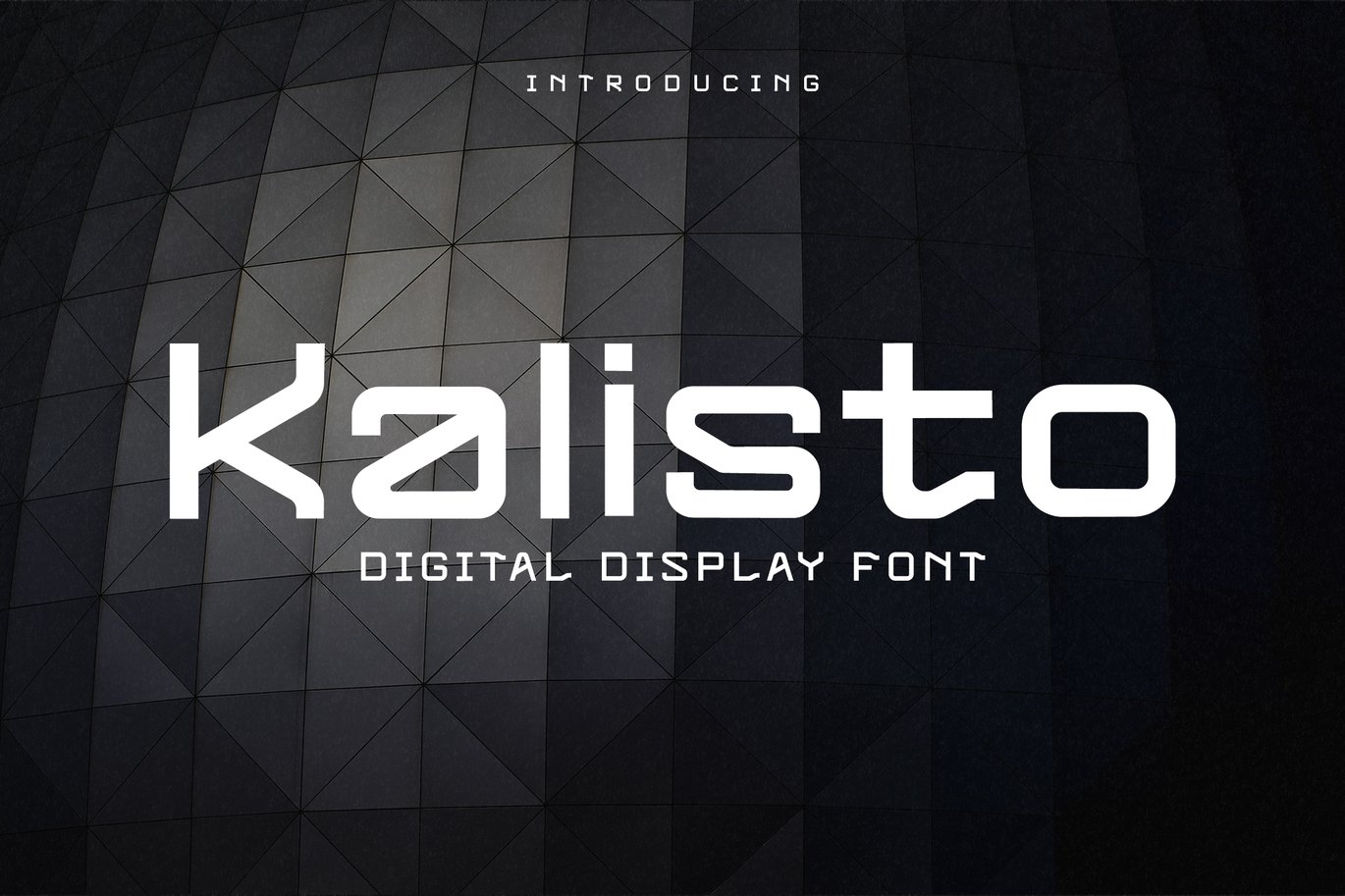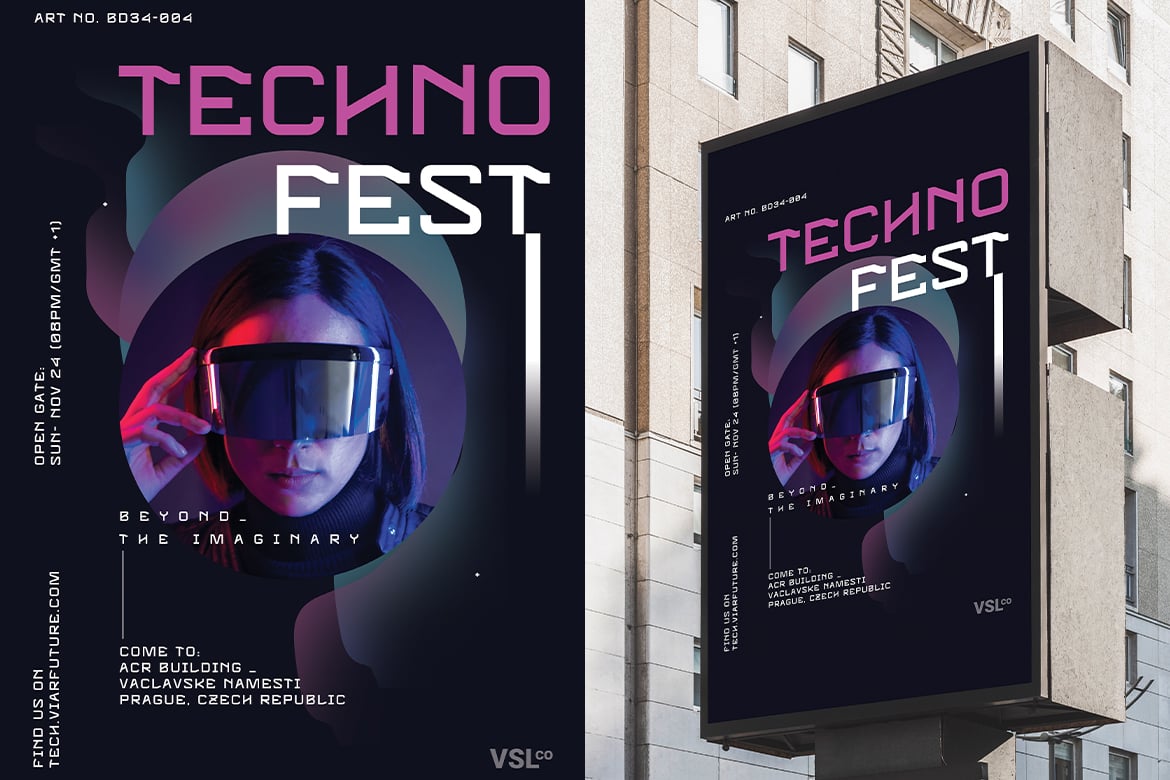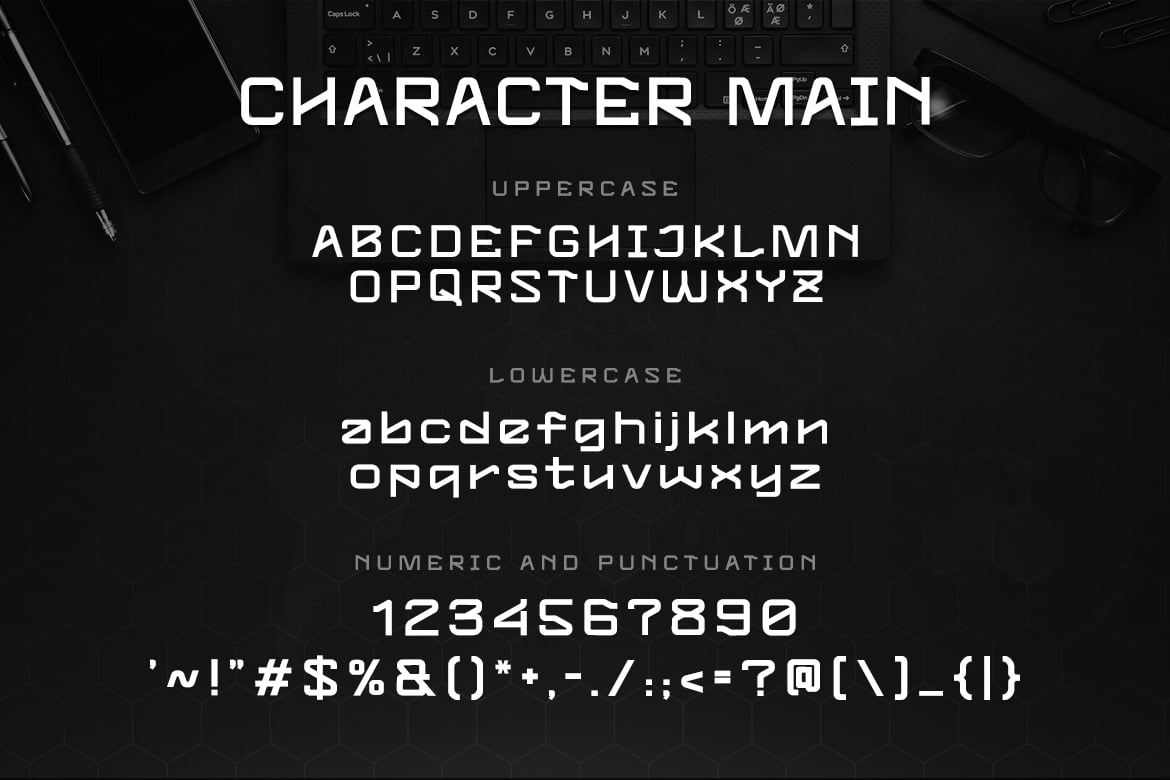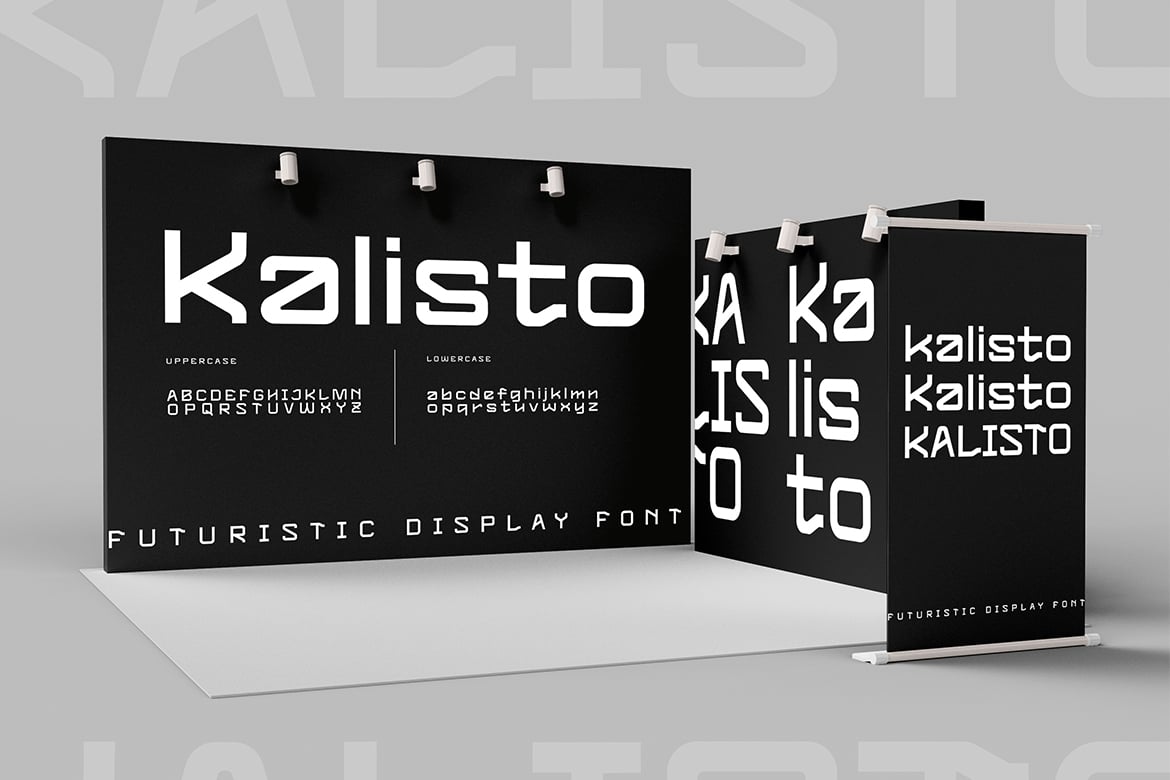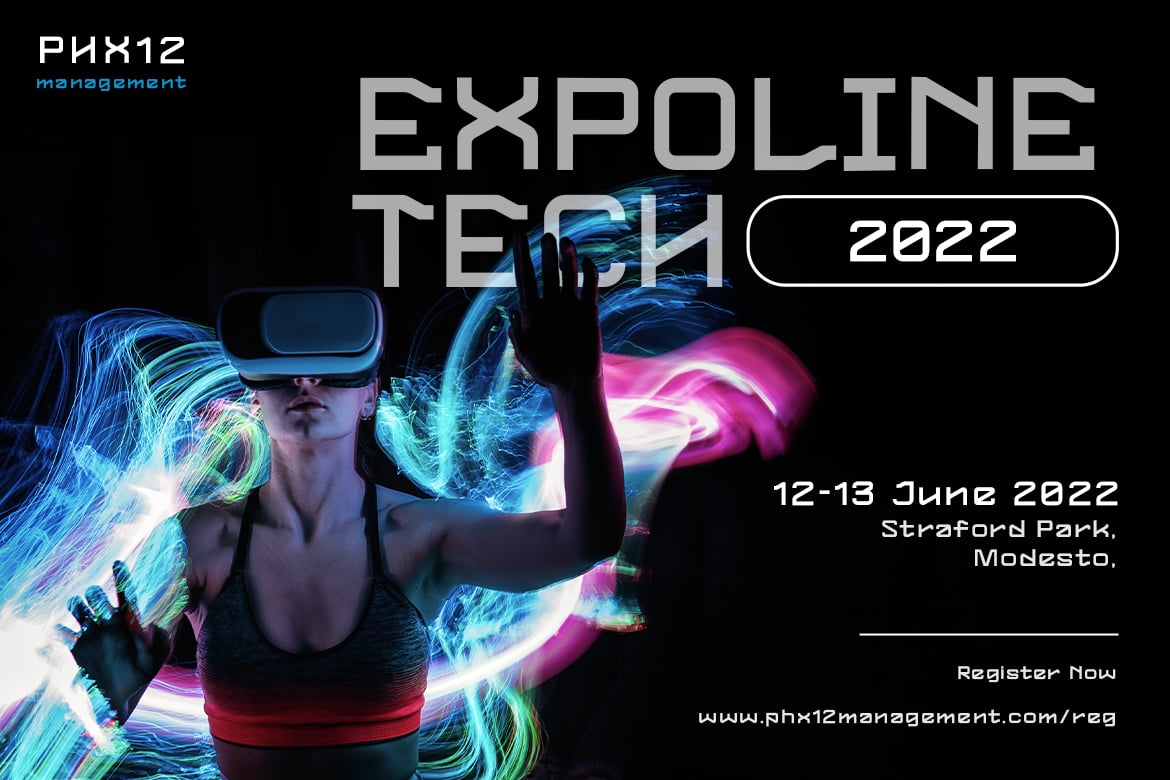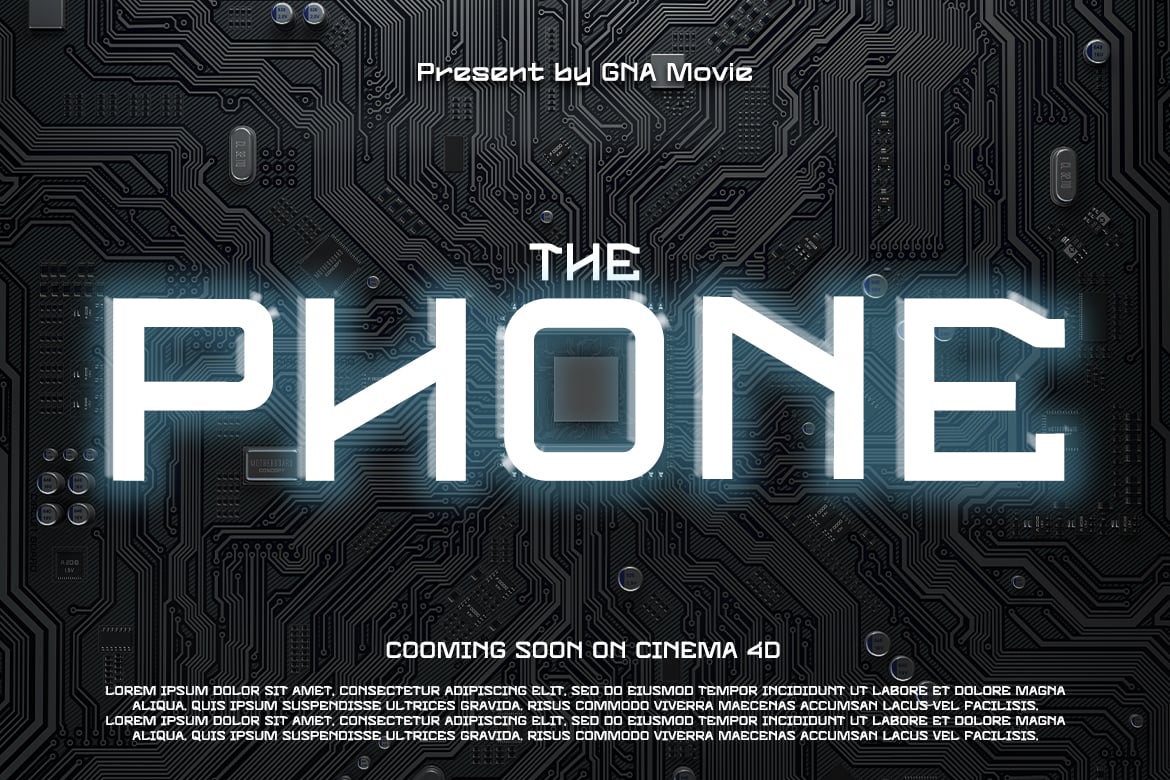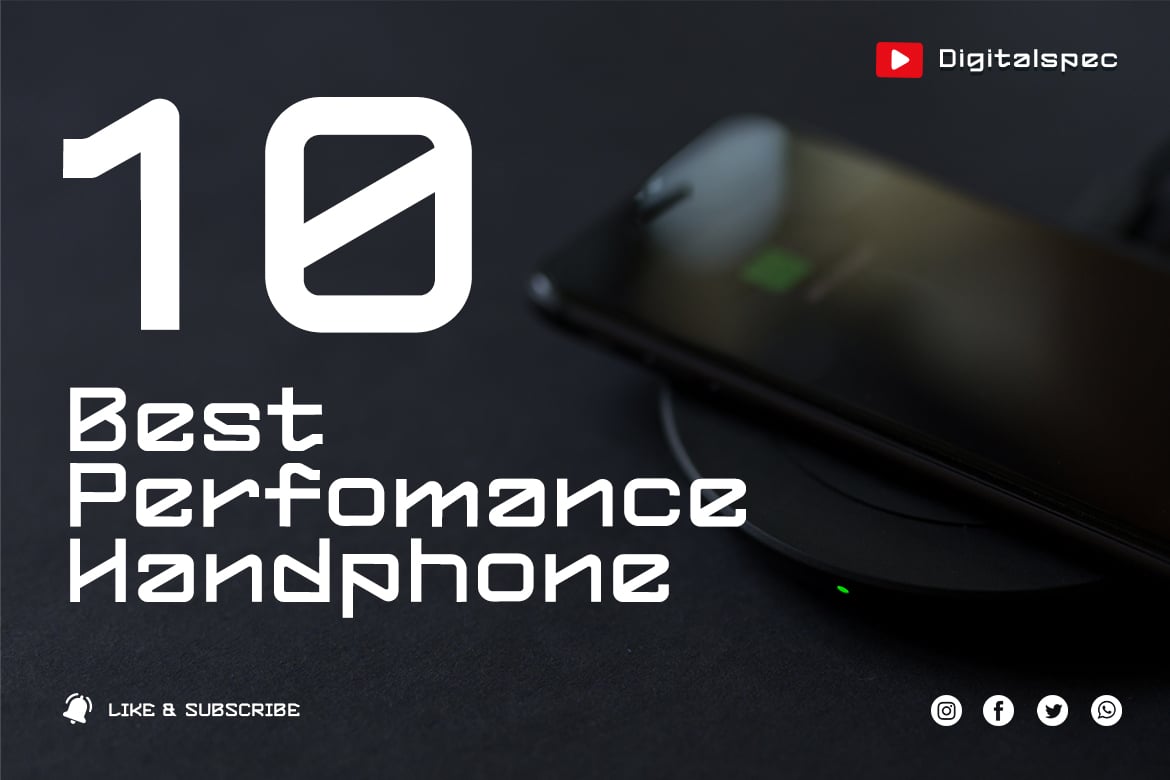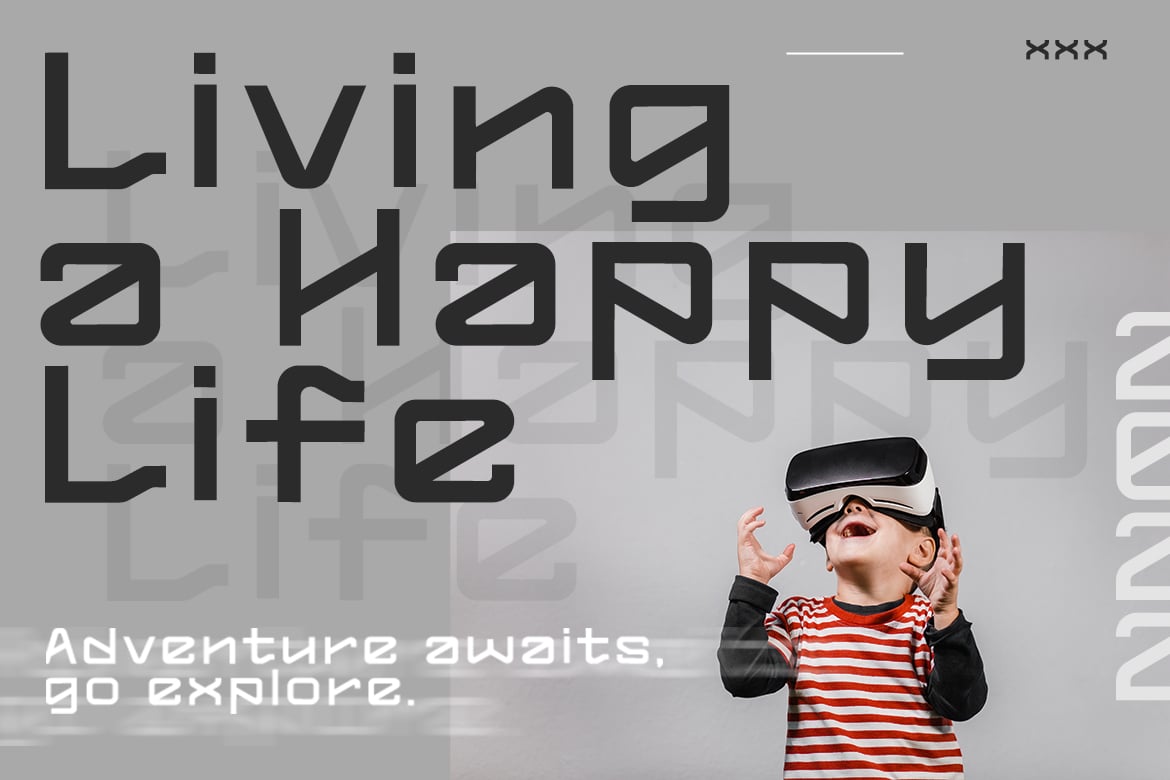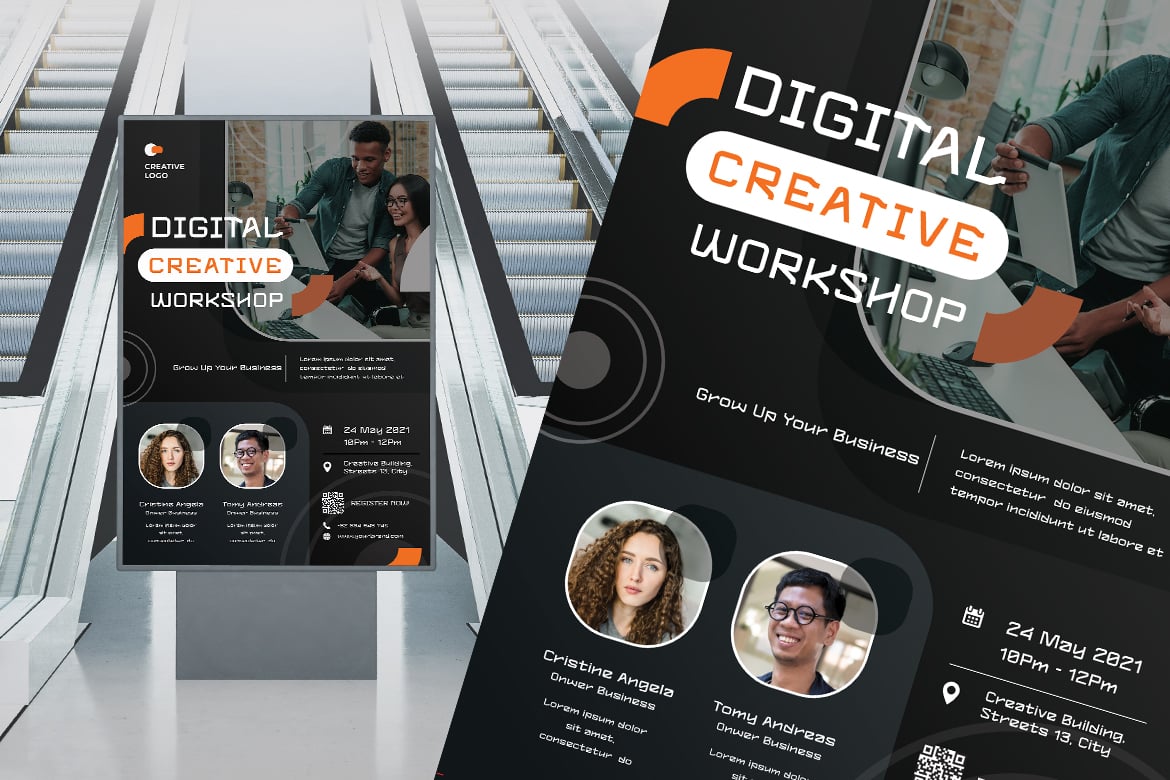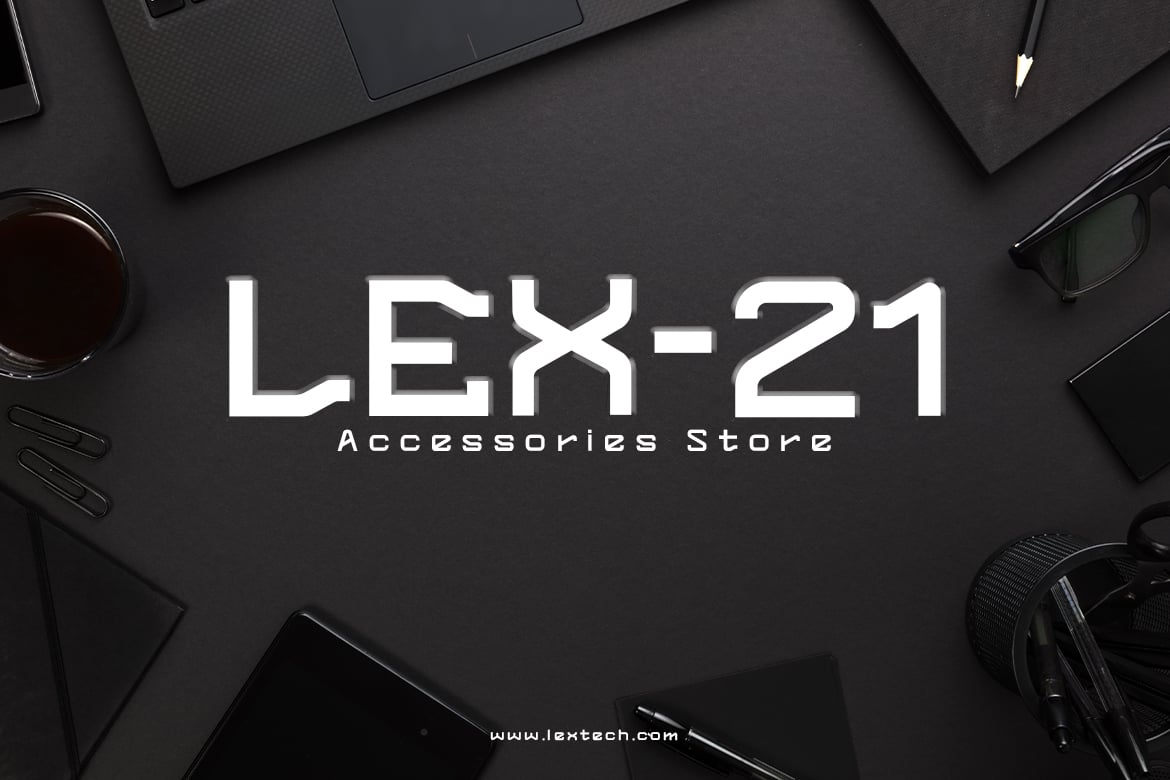
KALISTO – Digital Display Font
The unique shapes of its lowercase bring much more attention to it than the other regular futuristic font. It will stand out in the gadget launching event, even as a product launch main font. This will be perfect.
Suit perfectly for future and science segmented magazine, poster, movie title, music poster, youtube covers, youtube thumbnails, social media page covers and so on…